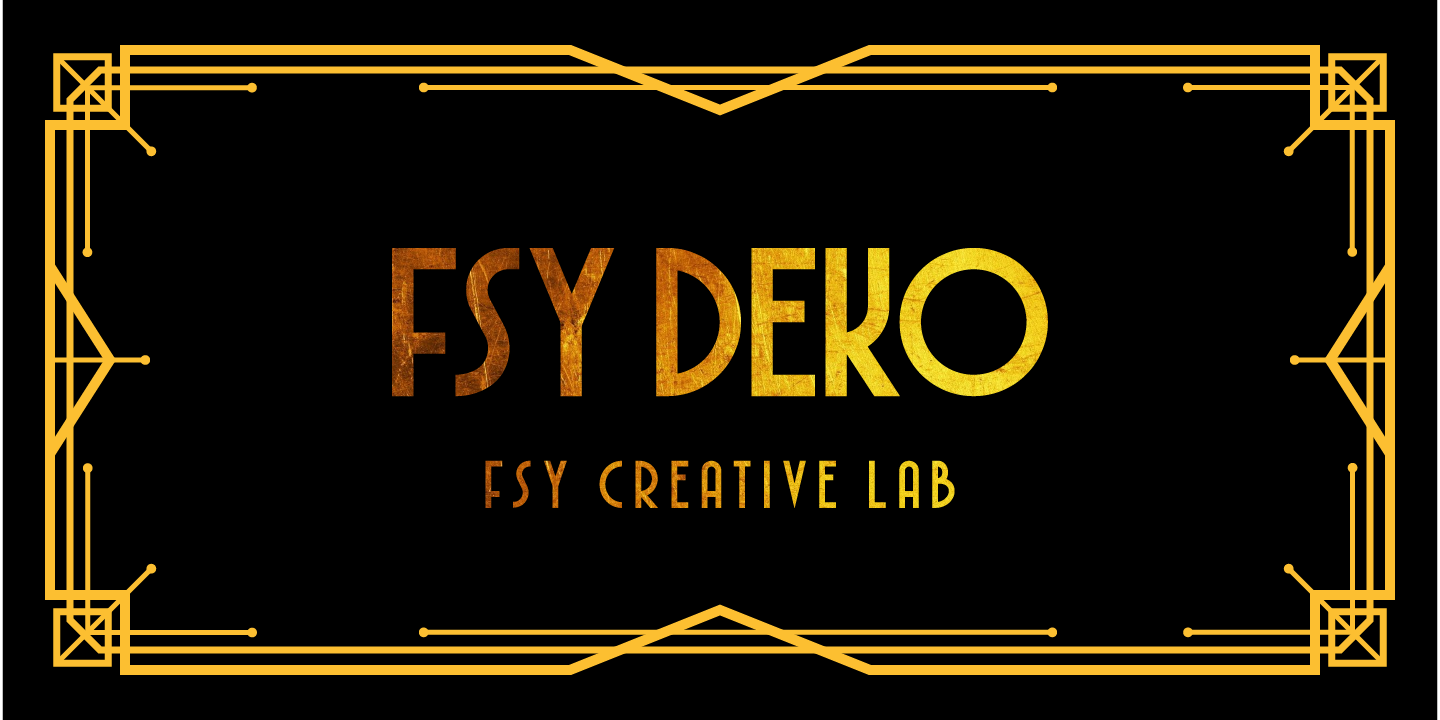
FSY Deko Font Free Download – A Bold Art Deco Masterpiece for Glamorous Designs
Looking for a font that screams 1920s luxury and sophistication? FSY Deko Font Free Download delivers a stunning Art Deco-inspired display face perfect for high-end branding, vintage posters, luxury packaging, and any project needing Gatsby-era glamour. Its geometric precision and lavish details transport viewers to the Roaring Twenties.
Why Choose FSY Deko Font?
FSY Deko Font Free Download dazzles with:
Authentic Art Deco letterforms with sunburst details
Multiple stylistic alternates for custom luxury looks
Perfect for speakeasy branding and retro revivals
Includes lavish swashes for dramatic flourishes
FSY Deko Font Free Download – Vintage Opulence
Transport your designs to the Jazz Age with this opulent typeface for:
Luxury hotel branding & cocktail menus
Vintage-inspired jewelry packaging
Theater posters & period film titles
High-end cosmetic branding
Designer Tip: Pair with gold foil stamping and black velvet textures for ultimate decadence!
(Typography Tip: Use all-caps at 36pt+ to showcase its breathtaking details!)